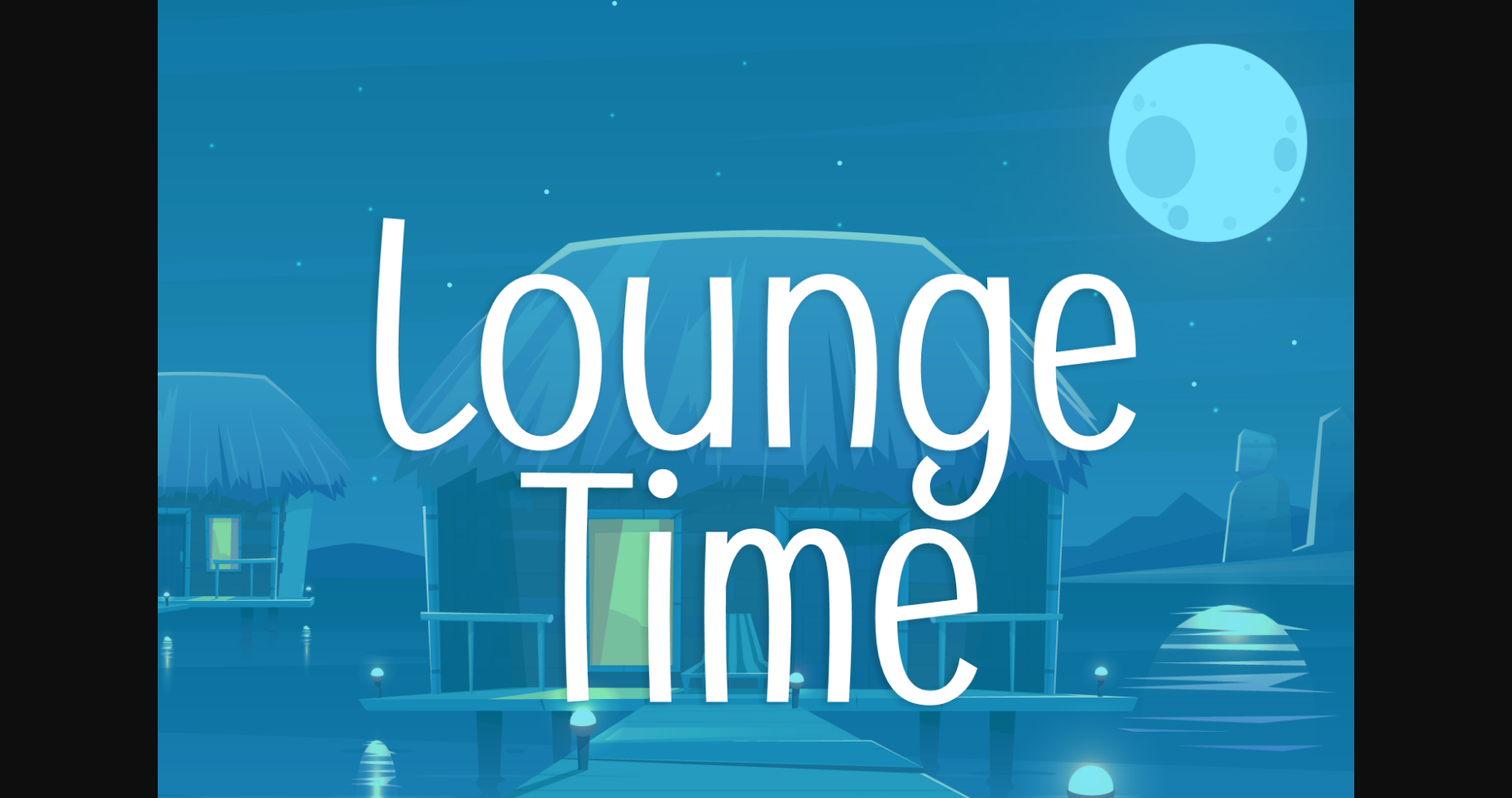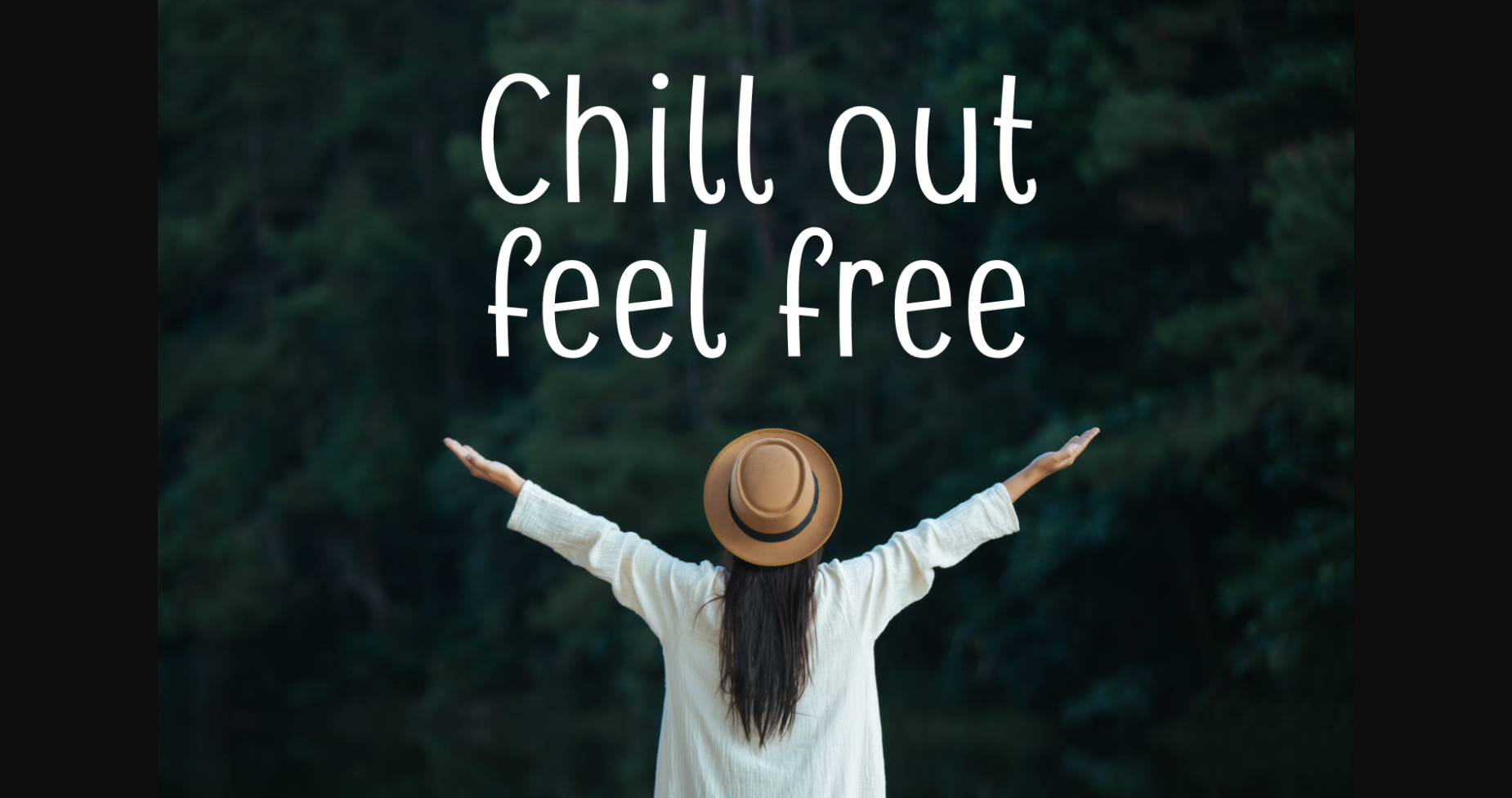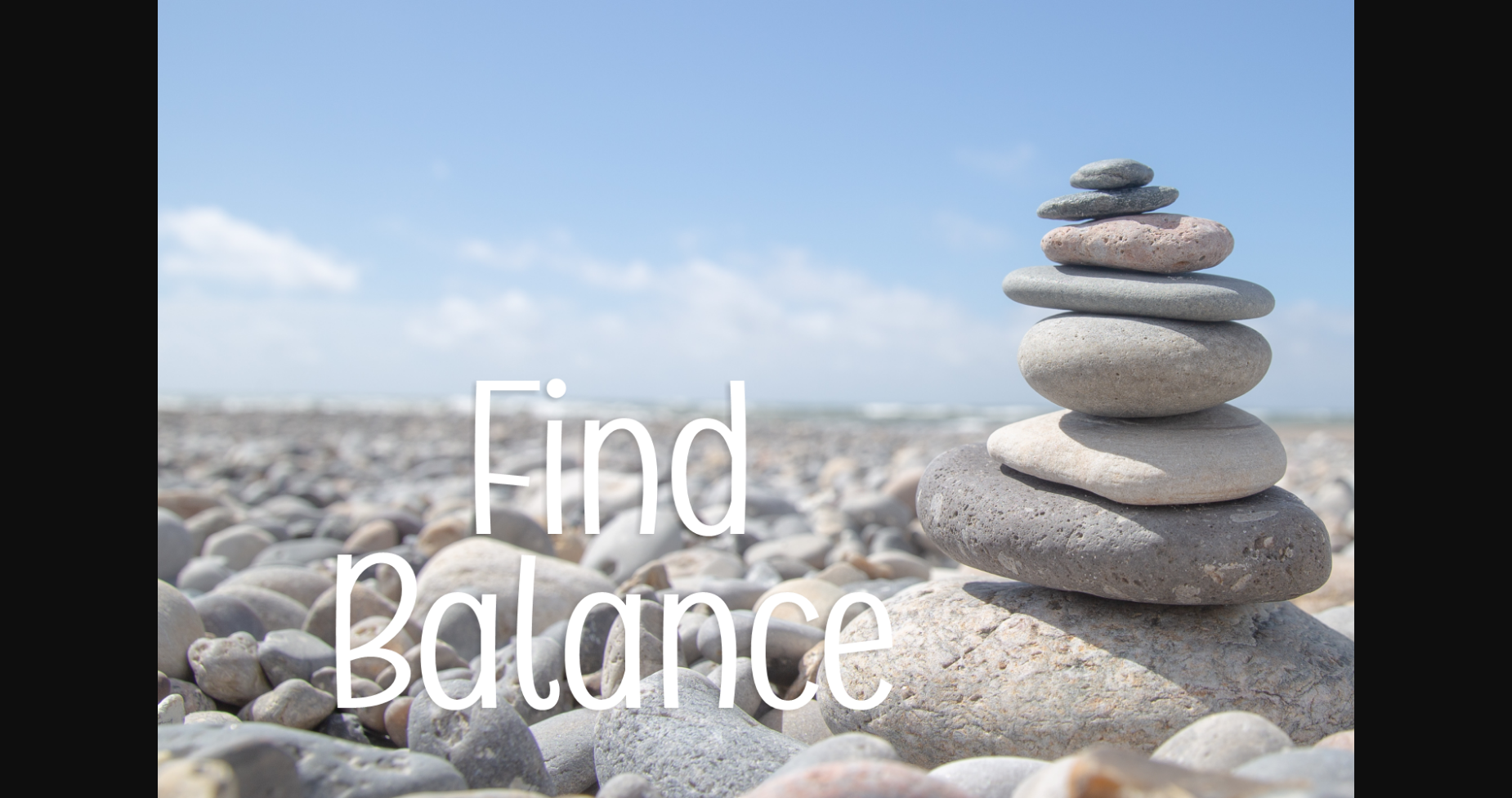
About Lounge Time Font
Lounge Time is a simple, casual, and minimalistic font. It features clean, bouncy lines which bring a unique vibrancy. This font is an essential staple to have in your library. Lounge Time is compatible with cutting machines including Cricut and Silhouette.